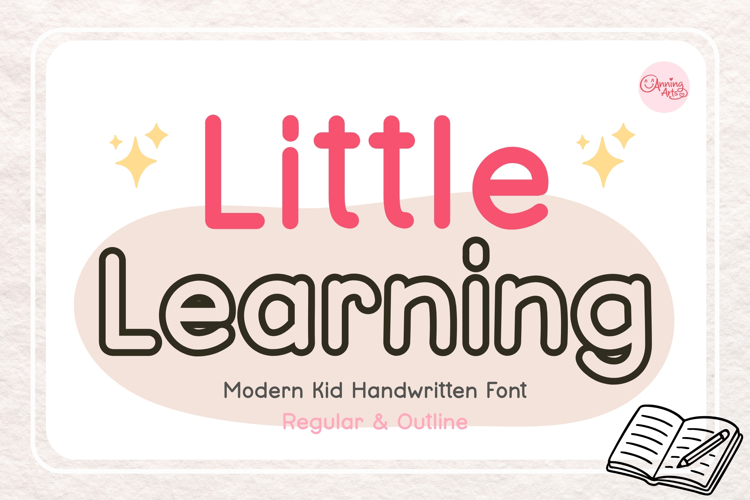
Little Learning Font is a cute modern handwritten font designed for teachers, classrooms, children's projects, planners, and creative crafts.
This font includes both Regular and Outline styles, making it easy to mix and match for eye-catching designs. With multilingual support, it is perfect for creating educational materials, classroom decor, printable resources, journals, stickers, apparel, sublimation projects, and personalized gifts.